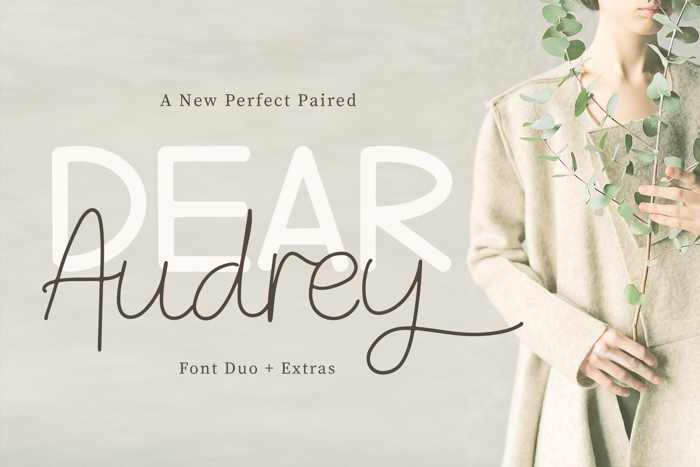
Dear Audrey Script Font
Script Style
A perfect handwritten font duo font with a unique and elegant feel united into one. DearAudrey is perfect for branding projects such as logo, presentation, and product packaging. It's also perfect for wedding and fashion themed - or a stylish text overlay to any background image.